Surprisingly Many Kana System Glyphs 03: “Half-Width, and Block of Multiple Characters Arranged in a Space Equivalent to That of a Single Character”
Today, I would like to introduce points on creating half-width and blocks of multiple characters arranged in a space equivalent to that of a single character, testing the application ability from points described in the previous article (With Voiced Dots, Semi-Voiced Dots, and Small Scripts).
Half-width kana
Adjustment is made after reducing the horizontal width by 50%. With thick weights in particular, it may feel difficult to adjust the black wash. Try to search for a suitable outline while paying attention to several perspectives including the natural looking balance of the thickness of vertical strokes and horizontal strokes, and matching the black wash to the other glyphs.
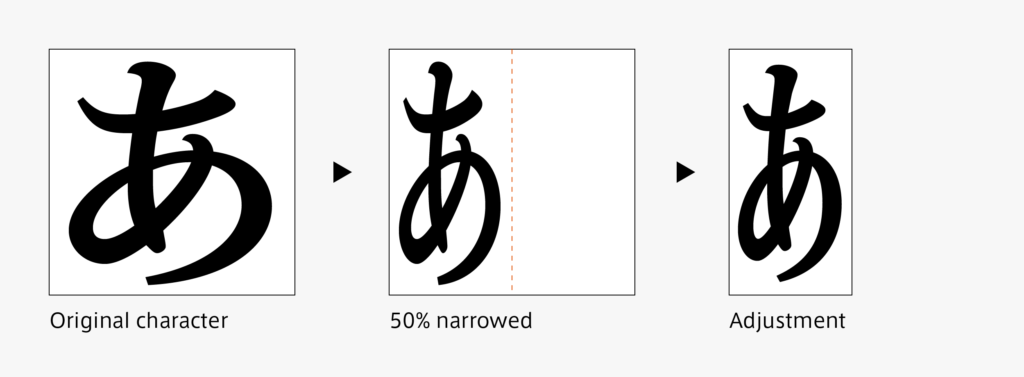
In the case of TP Sky, which is a narrow font family, for example, the narrow kana glyph is created similar to the half-width, and even glyphs with very narrow width in the half-width that are further from narrow fonts are also prepared.
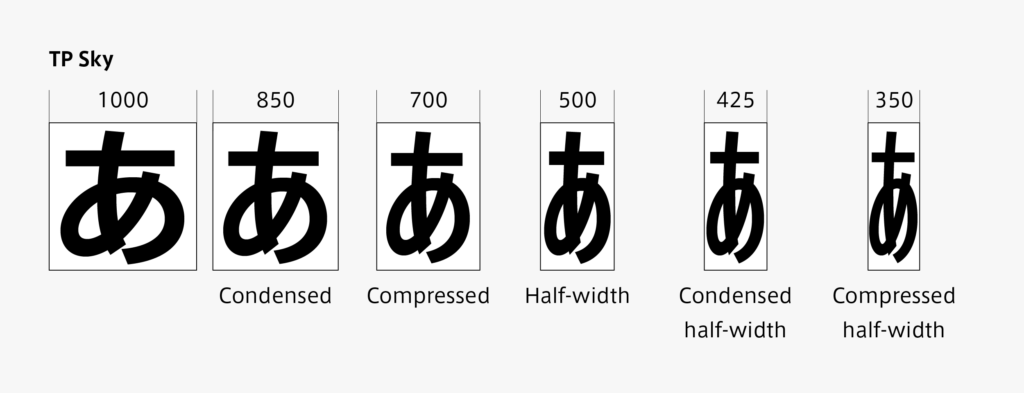
Kana in blocks of multiple characters arranged in a space equivalent to that of a single character
When the original kana design is decided, block of multiple characters arranged in a space equivalent to that of a single character, such as “㍉㍑㌕”, is also created. After reducing and combining the characters, the thickness, character width, arrangement, etc. are adjusted. The character is balanced with unity as a singular glyph and together with other typesetting characters.
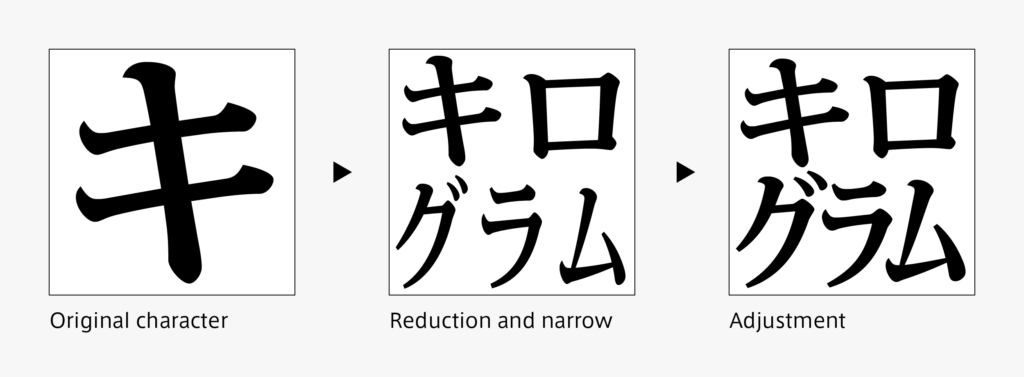
In blocks of multiple characters arranged in a space equivalent to that of a single character, there are variations for horizontal typesetting and vertical settings. The character arrangement is decided upon looking at the vertical flow and horizontal flow.